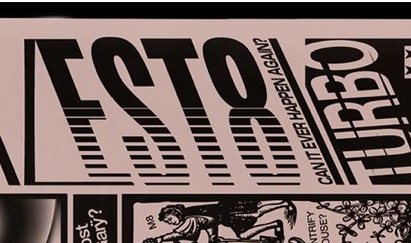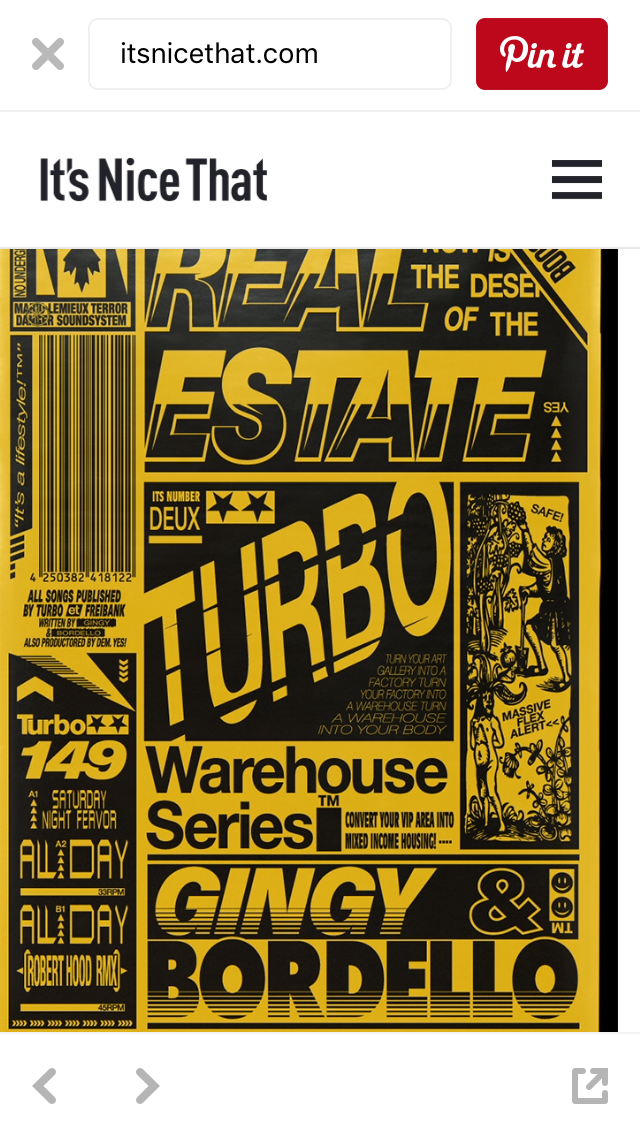
I'm searching for the font/typeface in the pictures you can see, especially for the
left italic. I've already searched for hours and tried many ways to do so but
wasn't successful. Would be really glad if someone could help me.
"BORDELLO" appears to be Futura Extra Bold with some manual condensing.
"EST8" is likely to be Helvetica Ultra Compressed with again some manual condensing and skewing.
The striped effect is likely to be an overlay to those popular fonts rather than it being a custom design.